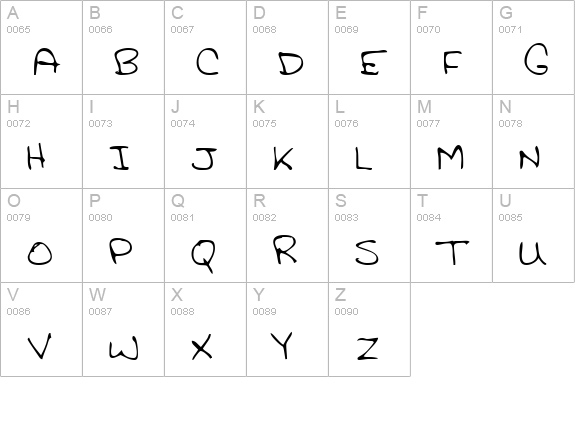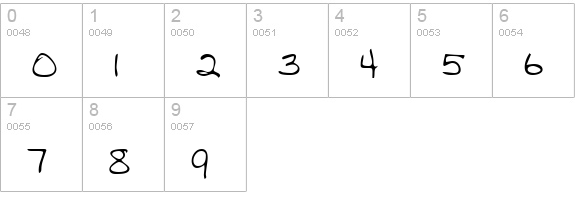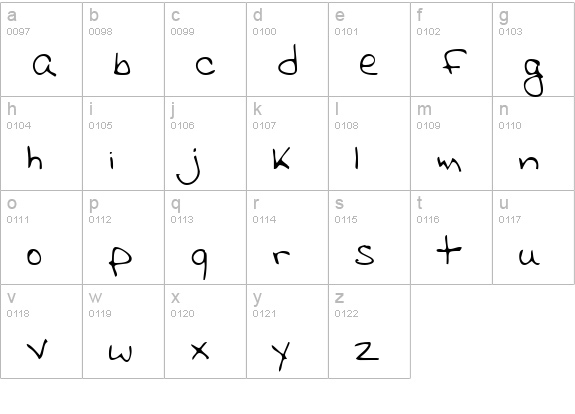
GinnysHand Regular Font Details
GinnysHand Regular is the standard, neutral variant in the GinnysHand typeface family \xE2\x80\x94 well suited to general body text, paragraphs, and standard typographic work.
GinnysHand Regular font is a charming and versatile typeface that exudes a sense of warmth and friendliness. This handwritten font captures a casual and approachable vibe, making it perfect for a wide range of design projects. Whether you're creating invitations, greeting cards, or social media graphics, GinnysHand Regular will add a personal touch to your work. What's even better is that GinnysHand Regular is completely free to download at FontsMarket.com. That's right, you can easily access this delightful font and incorporate it into your designs without any cost. So why wait? Give your projects a unique and inviting look with GinnysHand Regular font today!